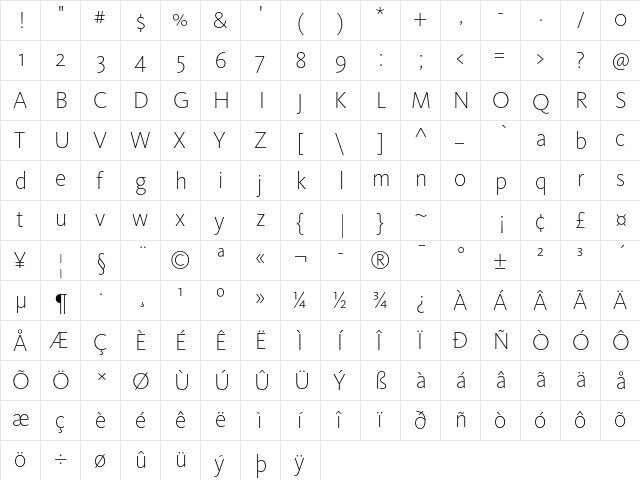
KievitOT-ExtraLight Regular
| Foundry | FSI Fonts und Software GmbH |
| Designer | Mike Abbink |
Design Context for KievitOT-ExtraLight Typeface
KievitOT-ExtraLight takes a measured approach to typography — its balanced proportions and neutral character make it a reliable workhorse for both digital and print work. The delicate stroke weight brings airiness and refinement to layouts.
Dating back to 2005, this typeface is available in OpenType (OTF) format.